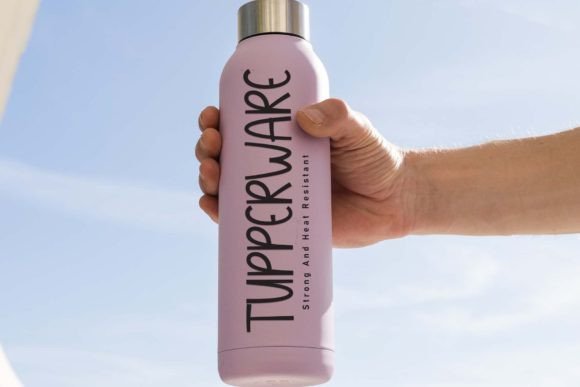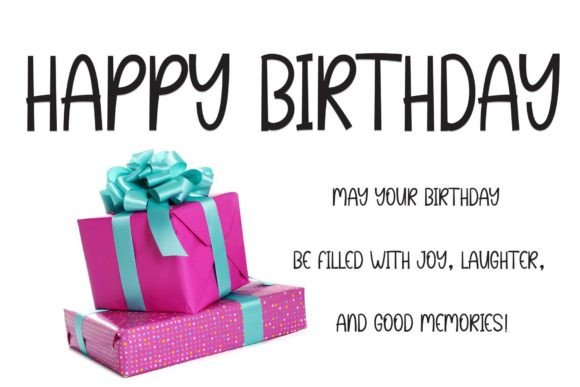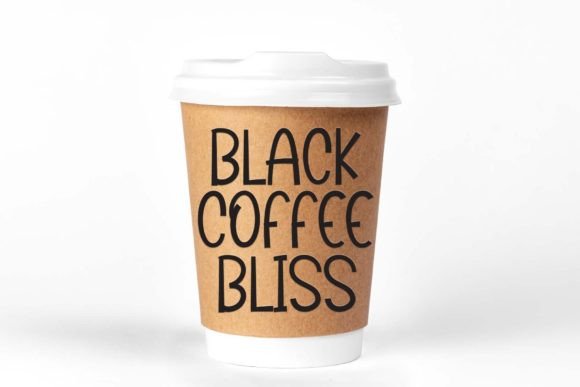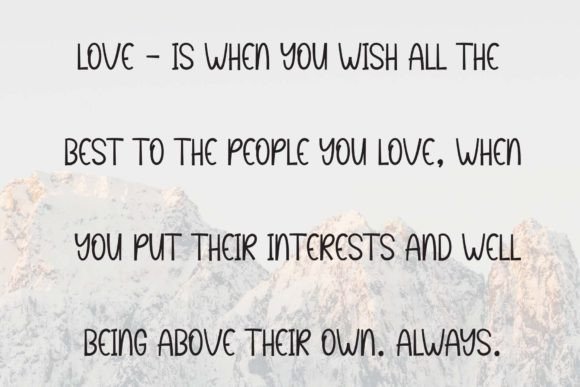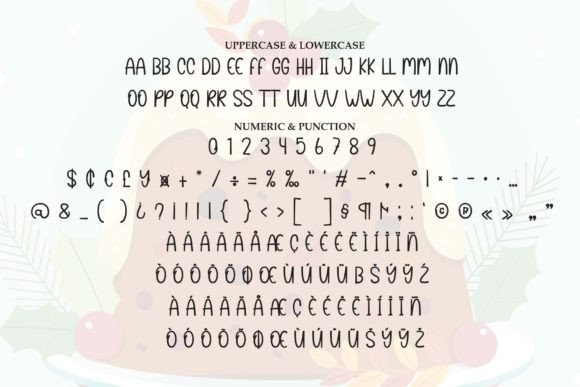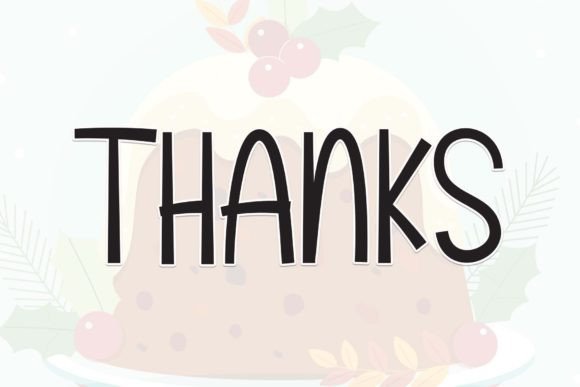
Introducing Christmas Pudding Font: The Perfect Addition to Your Holiday Projects
Are you looking for a font that captures the essence of the holiday season? Look no further than Christmas Pudding Font! This fun and friendly handwritten font is perfect for designers and crafters who want to add a touch of whimsy to their projects. With its quirky yet versatile look, Christmas Pudding Font is sure to help you create a wide range of projects that will delight your audience.
The Characteristics of Christmas Pudding Font
Christmas Pudding Font is a handwritten font that boasts a unique and charming personality. Its letters are carefully crafted to resemble the imperfect, yet lovable, qualities of handwritten text. The font features:
- Quirky letterforms: Each letter in Christmas Pudding Font has its own distinct character, with subtle variations in size, shape, and texture.
- Handwritten flair: The font’s handwritten feel makes it perfect for creating projects that require a personal touch.
- Versatile style: Christmas Pudding Font can be used for a wide range of projects, from holiday cards and invitations to craft tutorials and blog posts.
Why Designers and Crafters Love Christmas Pudding Font
Designers and crafters alike will fall in love with Christmas Pudding Font for several reasons:
- Customization options: Christmas Pudding Font can be easily customized to fit your project’s specific needs, from adjusting the font size and color to adding textures and effects.
- Unique results: The font’s quirky nature ensures that your projects will stand out from the crowd and grab attention.
Ideas for Using Christmas Pudding Font
The possibilities are endless when it comes to using Christmas Pudding Font! Here are a few ideas to get you started:
- Holiday cards and invitations: Create personalized holiday cards and invitations that will make your loved ones feel special.
- Craft tutorials: Use Christmas Pudding Font to add a touch of personality to your craft tutorials and blog posts.
- Social media graphics: Add a festive touch to your social media graphics, from Facebook posts to Instagram stories.
- Digital planners and journals: Use Christmas Pudding Font to create fun and functional digital planners and journals.
Tips for Getting the Most Out of Christmas Pudding Font
To get the most out of Christmas Pudding Font, keep the following tips in mind:
- Experiment with colors and textures: Don’t be afraid to try out different colors and textures to add depth and interest to your projects.
- Mix and match with other fonts: Combine Christmas Pudding Font with other fonts to create unique and visually appealing results.
- Play with font sizes and styles: Experiment with different font sizes and styles to add emphasis and create visual hierarchy.